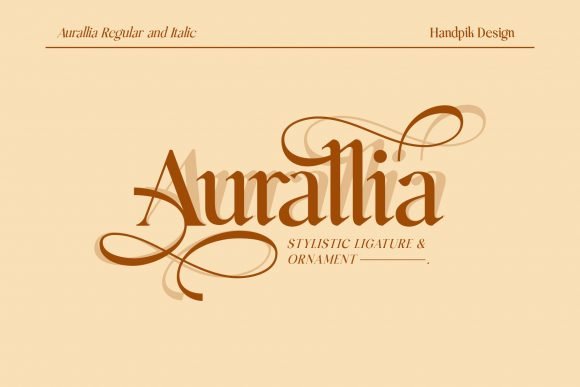
A New Dimension in Typography: Introducing Aurallia Font
As a designer, there’s nothing quite like the thrill of bringing a new project to life. You pour your heart and soul into every detail, from the initial concept to the final presentation. And then, it happens – the moment when all the pieces come together, and your creation shines with a level of sophistication and elegance that leaves you beaming with pride. That’s exactly what you can achieve with the right font, and that’s where the Aurallia Font comes in.
This refined and fashionable serif font is the perfect addition to any designer’s toolkit. With its meticulous craftsmanship and attention to detail, Aurallia Font has the power to elevate even the most basic of designs into something truly extraordinary. Whether you’re working on a high-end branding project or a simple blog post, this font is sure to make your creations stand out.
Aurallia Font Key Features
- Unique Characteristics: Aurallia Font features a unique blend of modern and elegant design elements, with intricate details and subtle textures that give it a sophisticated look.
- Character Set: The font includes a comprehensive character set, covering Latin, Cyrillic, and Greek alphabets, as well as a range of punctuation and symbol characters.
- Font Styles: Aurallia Font is available in three styles: Regular, Italic, and Bold, providing flexibility for designers to create visually appealing typography.
A Designer’s Review of Aurallia Font
As a designer, I’ve had the chance to work with many fonts, but Aurallia is one that truly stands out. ✨ I love how it adds a touch of elegance and sophistication to any design project. The font is perfect for creating high-end brands, luxury packaging, or even editorial content.
- Beautiful script style that’s perfect for adding a personal touch
- High-quality, detailed lettering that’s sure to impress
- Easy to read and use, even for long blocks of text
- Works well in a variety of contexts, from print to digital
- May not be suitable for body text in smaller font sizes, as it can become difficult to read
- Not as versatile as some other fonts, and may not work well in certain design styles
Overall, I think Aurallia is a great choice for designers who want to add a touch of luxury and sophistication to their projects. While it may have some limitations, the benefits far outweigh the drawbacks. ✨
Tips for Getting the Most Out of Aurallia Font
Use the Aurallia font in combination with bold or italic styles to add emphasis to your text. Experiment with different font sizes to create visual interest. Use the font in headings and subheadings to create a clear hierarchy of information.
The Aurallia font is well-suited for use in creative and design-focused projects, such as:
Branding and identity design
Brochures and flyers
Website design and development
Infographics and data visualization